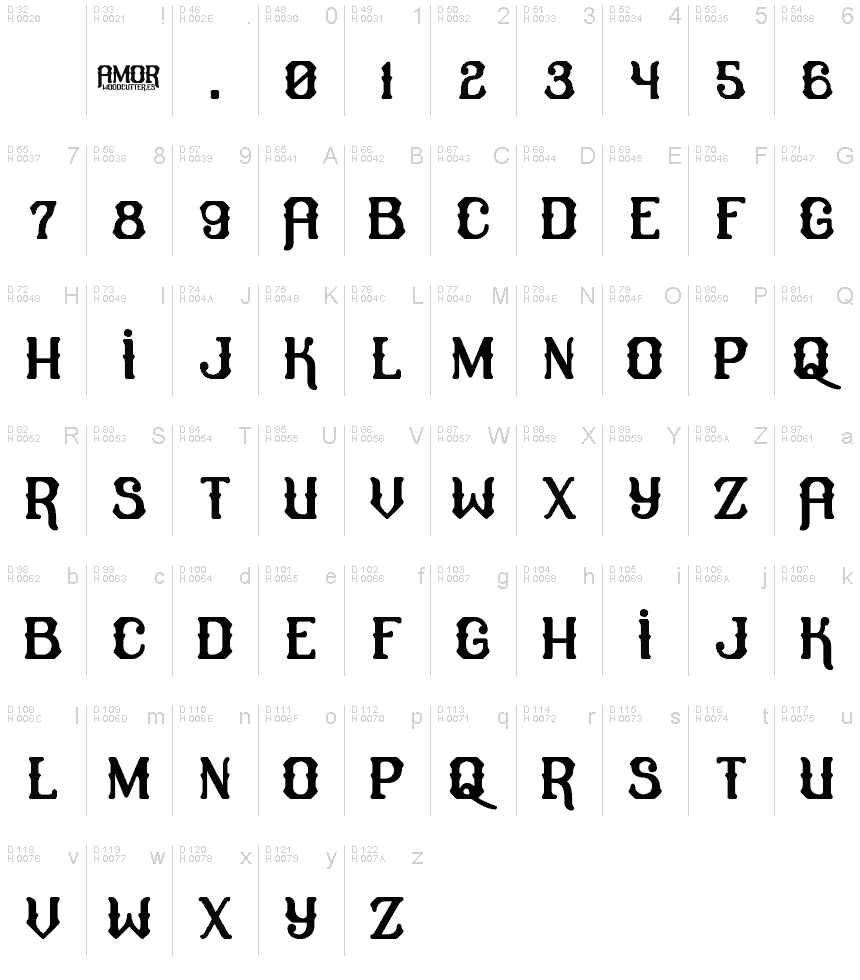
amor
Amor font by Woodcutter Manero is a free vintage display typeface that fuses gothic drama with chunky, almost woodcut-style slabs. The letters feel carved rather than drawn-thick stems, squared curves, and bold inner notches give each word a dense, tactile weight, like ink pressed deep into old paper or leather. It’s moody without being unreadable, carrying a dark romantic energy that stands out in just a few characters.
Using Amor, you can add a brooding edge to band posters, tattoo-inspired graphics, craft beer labels, gothic romance covers, bar signage, or heritage-themed logos. This free font really sings at large sizes where its blocky details and sculpted counters can breathe. Pair Amor with a clean geometric sans in small text to keep layouts balanced and let the vintage letterforms take center stage.